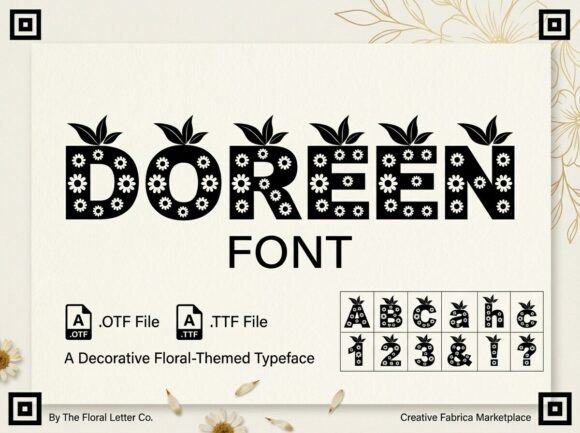
Discover the Whimsy of Doreen Font
Have you ever stared at a blank page, feeling the weight of a creative project bearing down on you? You’ve got an idea, but it’s just out of reach, like a delicate flower blooming in the spring. That’s where Doreen Font comes in – a decorative floral-themed typeface designed to bring a touch of whimsy and elegance to your work.
As a designer, you’re always on the lookout for unique elements that can elevate your projects and capture the essence of a brand or message. Doreen Font is more than just a pretty face – it’s a powerful tool for conveying a sense of playfulness and sophistication. With its integrated daisy patterns and delicate leaf terminals, this typeface is sure to add a touch of magic to your designs.
- Font Family: Doreen is a sans-serif font family, designed to be highly legible and versatile.
- Unique Characteristics: Doreen features a unique blend of modern and traditional design elements, with a focus on readability and aesthetic appeal.
Doreen Font Review
I’ve had the chance to work with the Doreen Font, and overall, I’m impressed with its features. ✨ Here are some of its strengths:
- Unique Design**: The Doreen Font boasts an elegant, modern design that’s perfect for various applications, from book covers to magazine headlines.
- High-Quality Characters**: The font’s characters are well-crafted, with crisp lines and smooth curves that ensure readability.
However, I did encounter some limitations with the Doreen Font. ⚠️ Here are some areas for improvement:
- Limited Font Variations**: While the font has a unique design, it’s not particularly versatile, with only a few font weights and styles available.
- No Oblique Version**: The font is only available in upright, with no oblique or italic version, which can limit its use in certain applications.
Overall, I think the Doreen Font is a solid choice for designers who need a high-quality, modern font with a unique design. While it has some limitations, its strengths make it a great addition to any font collection.
To get the most out of Doreen Font, use it for:
- Baby shower invitations and decorations
- Personalized gifts and party favors